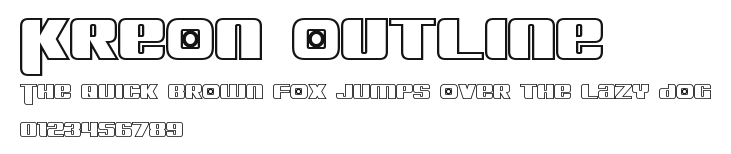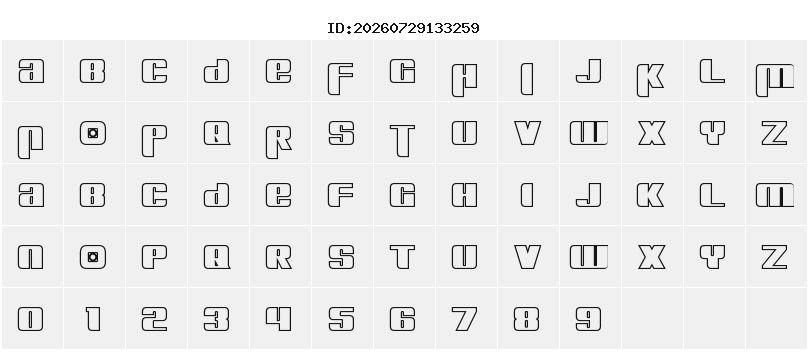
Kreon Outline Preview
• Font Name: Kreon Outline
• Full Font Name: Kreon Outline
• Version: Version 1.50 - July 29, 2013
• Copyright: Kreon © (Neale Davidson). 2011. All Rights Reserved
• Designer: Neale Davidson
Kreon Outline.ttf is a modern, elegant sans-serif font designed for ultimate readability and visual harmony. Perfect for branding, headlines, web design, and print materials.